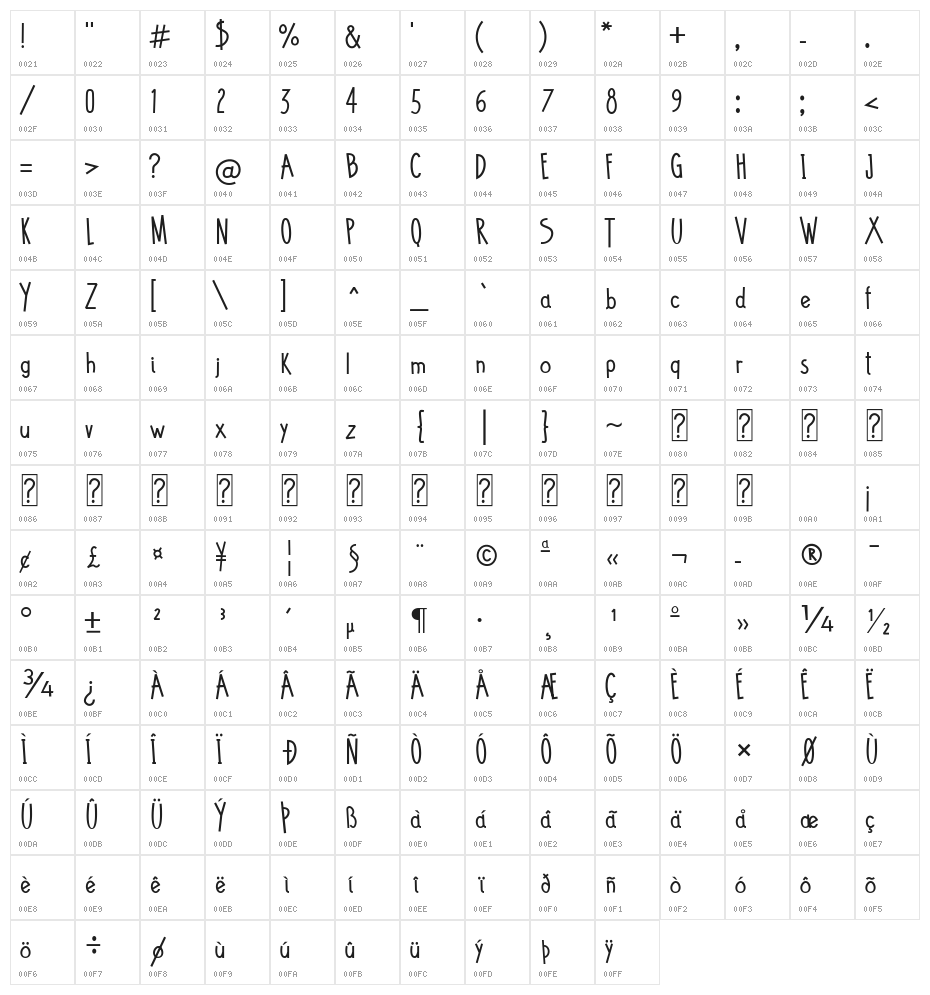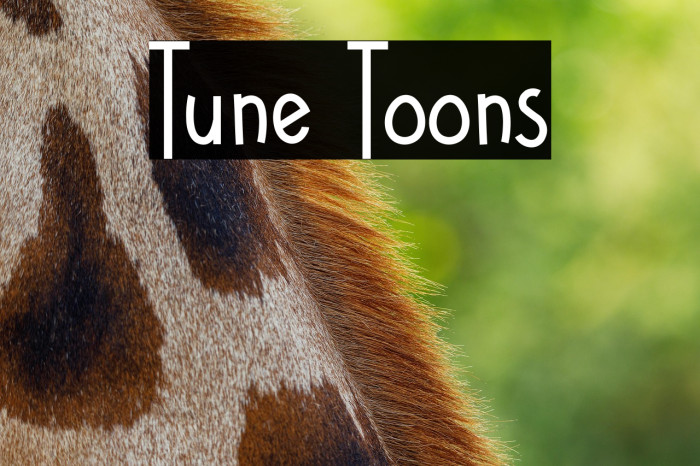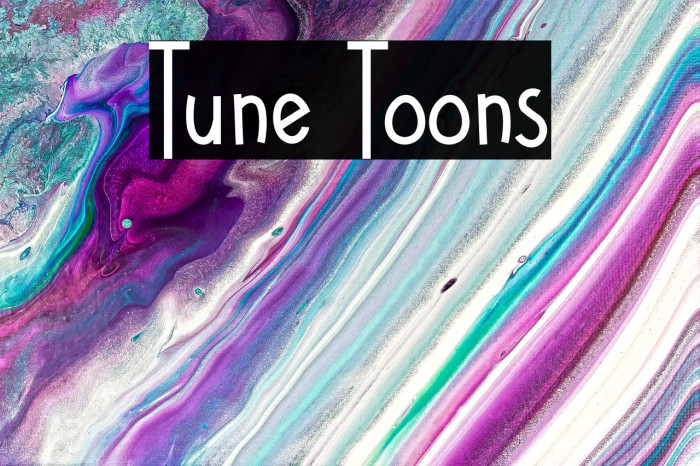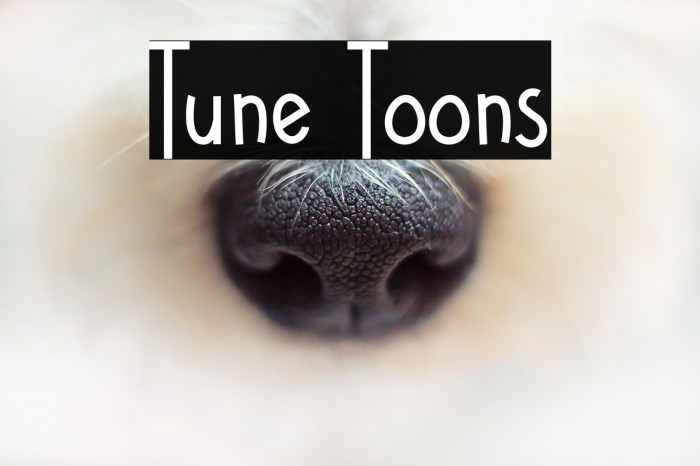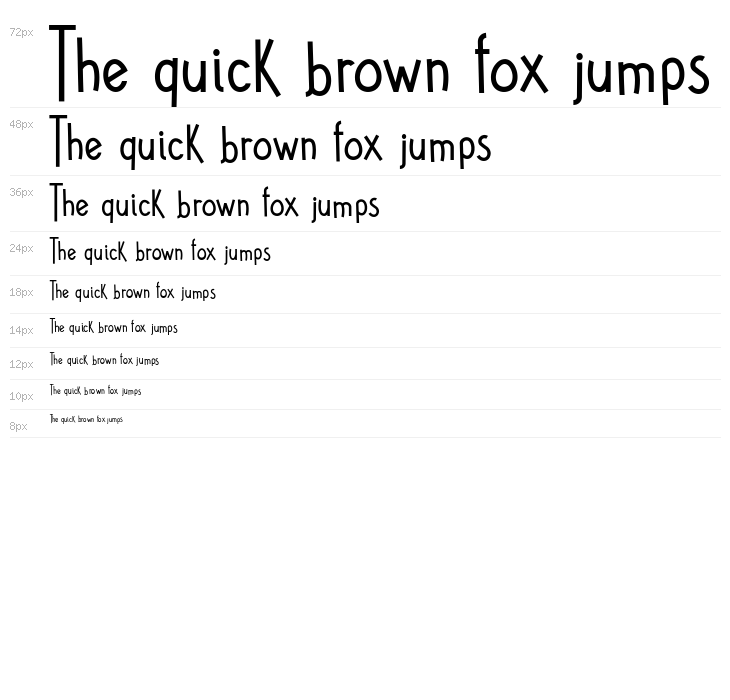
Tune Toons Font
| Style général | Whimsical |
| Projets proposés | Ideal for children's books, comic strips, playful branding, and creative projects. |